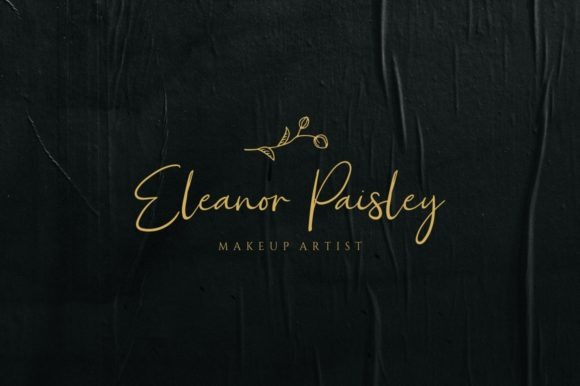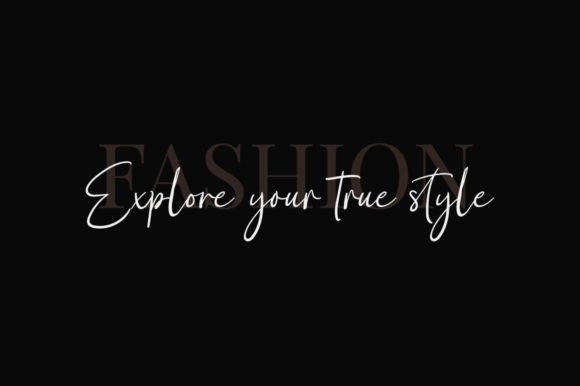
Dainty Creek Script Font
BTX Dainty Creek Script Font
Introducing our new script font, Dainty Creek! This fantastic font is inspired by nature, now available for the meagre price of a Starbucks coffee.